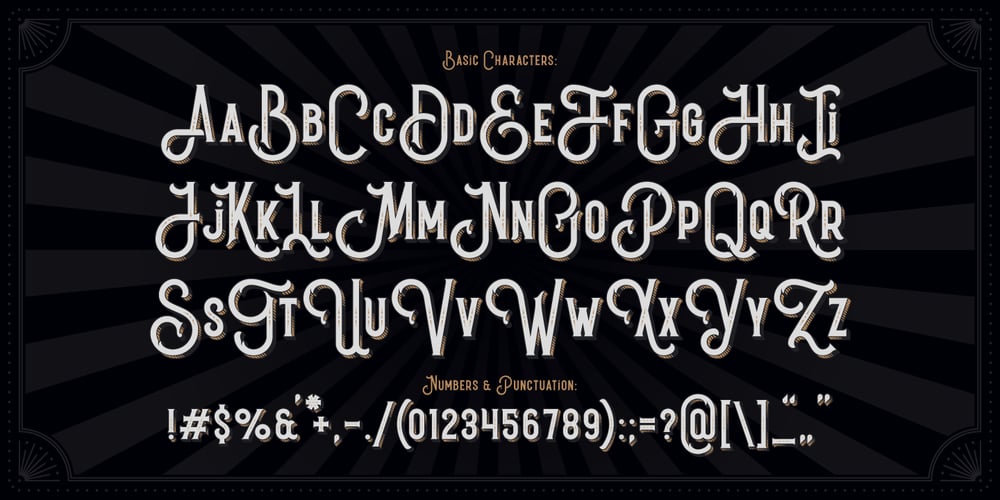
Black Queen Font Family was designed by Gleb Guralnyk and published by Gleb Guralnyk. Black Queen contains 4 styles and family package options. Presenting the vintage style typeface “Black Queen”. It includes font files for each decorative element which can be useful for manipulating colors and effects. Black Queen font has multilingual support and several alternative letter glyphs.